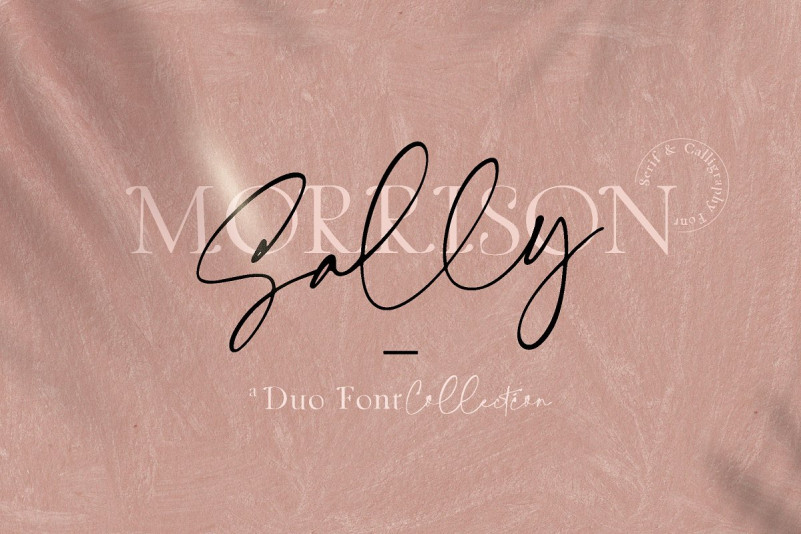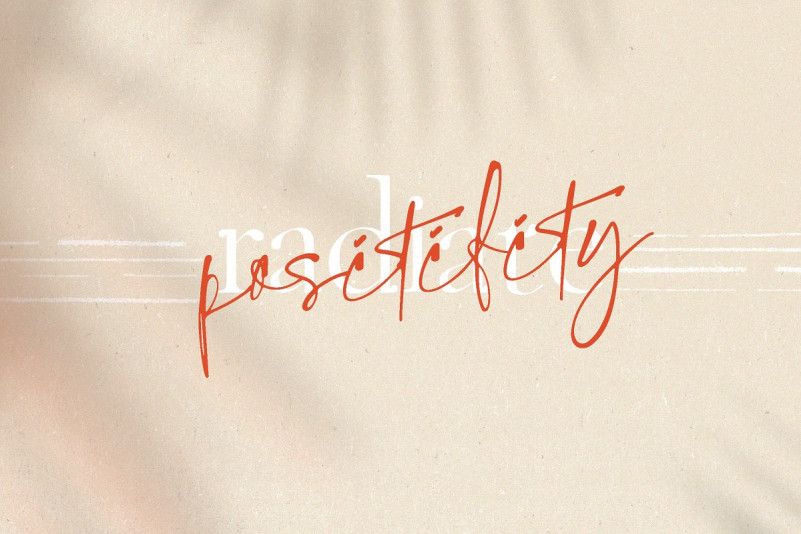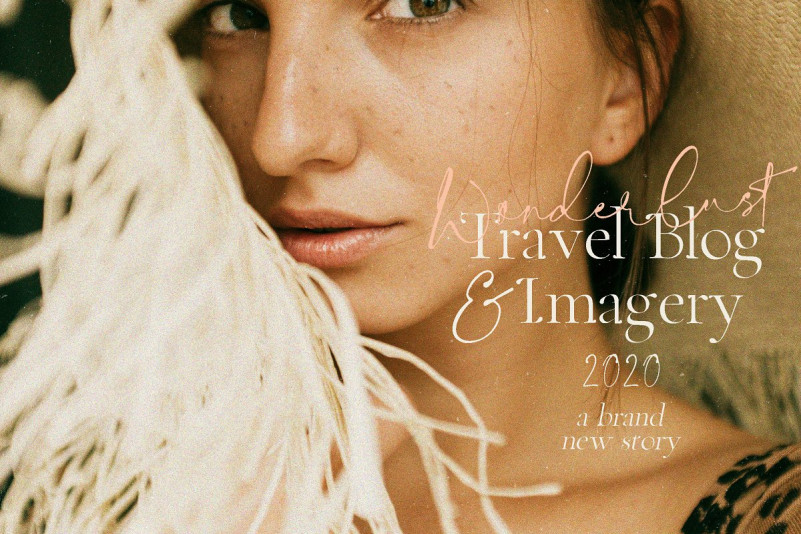
Sally Morrison Font
Sally Morrison is a modern duo font, a mix of stylish calligraphy and minimalist serif font. Comes with unique ligature, Sally Morrison makes a perfect font for your blog, logo, social media, branding, poster, quotes, wedding cards & so forth, you decide!